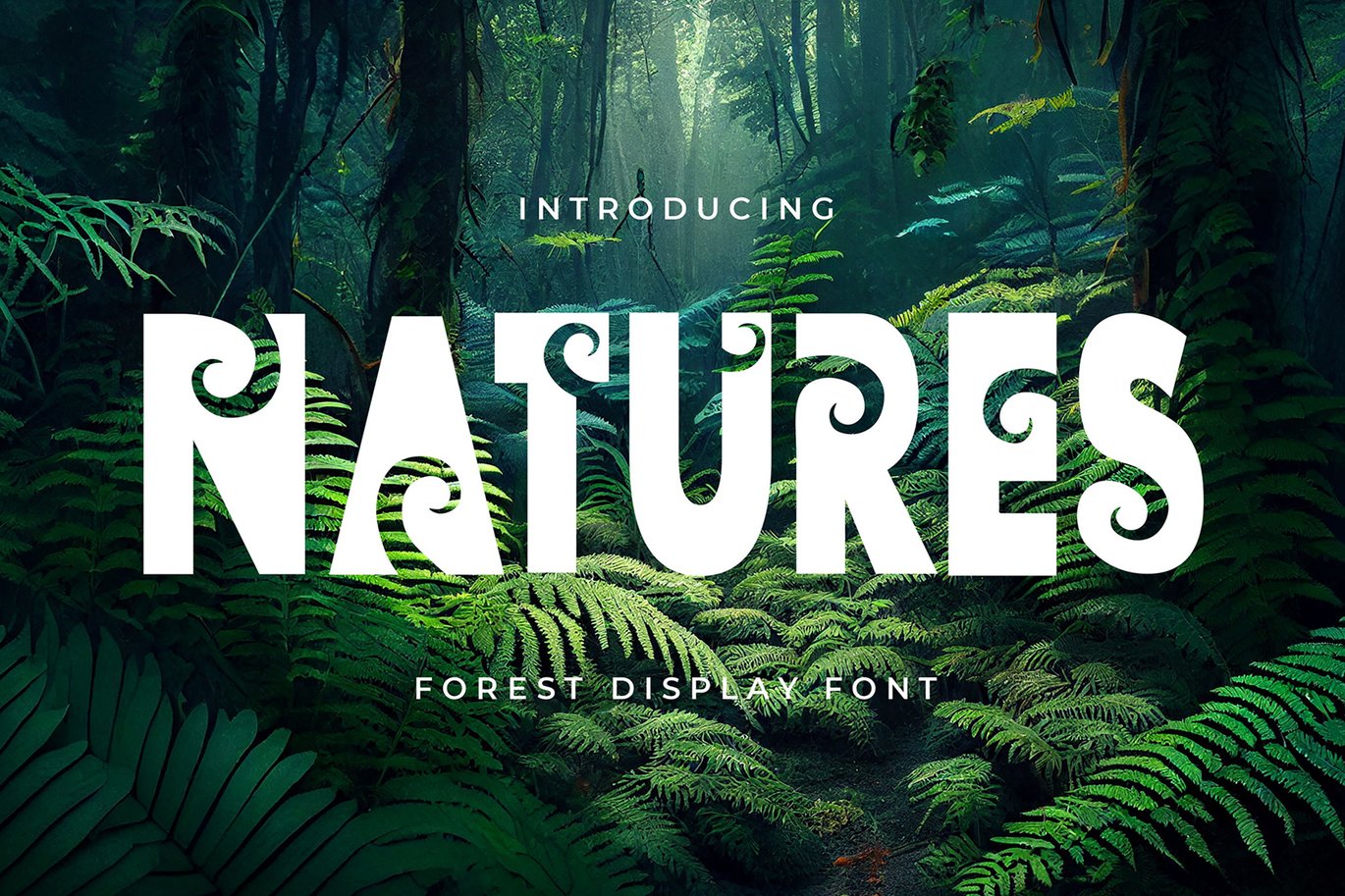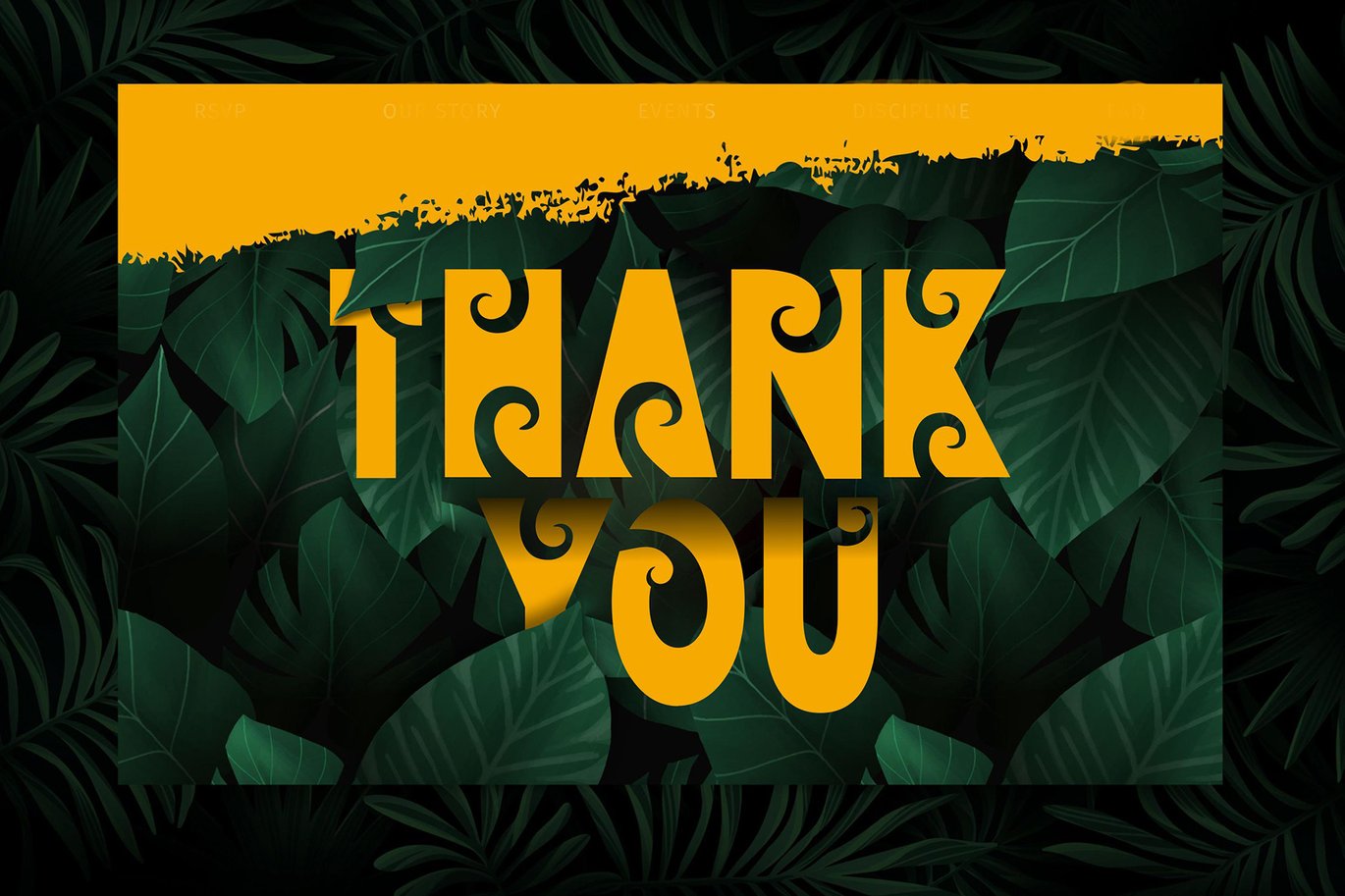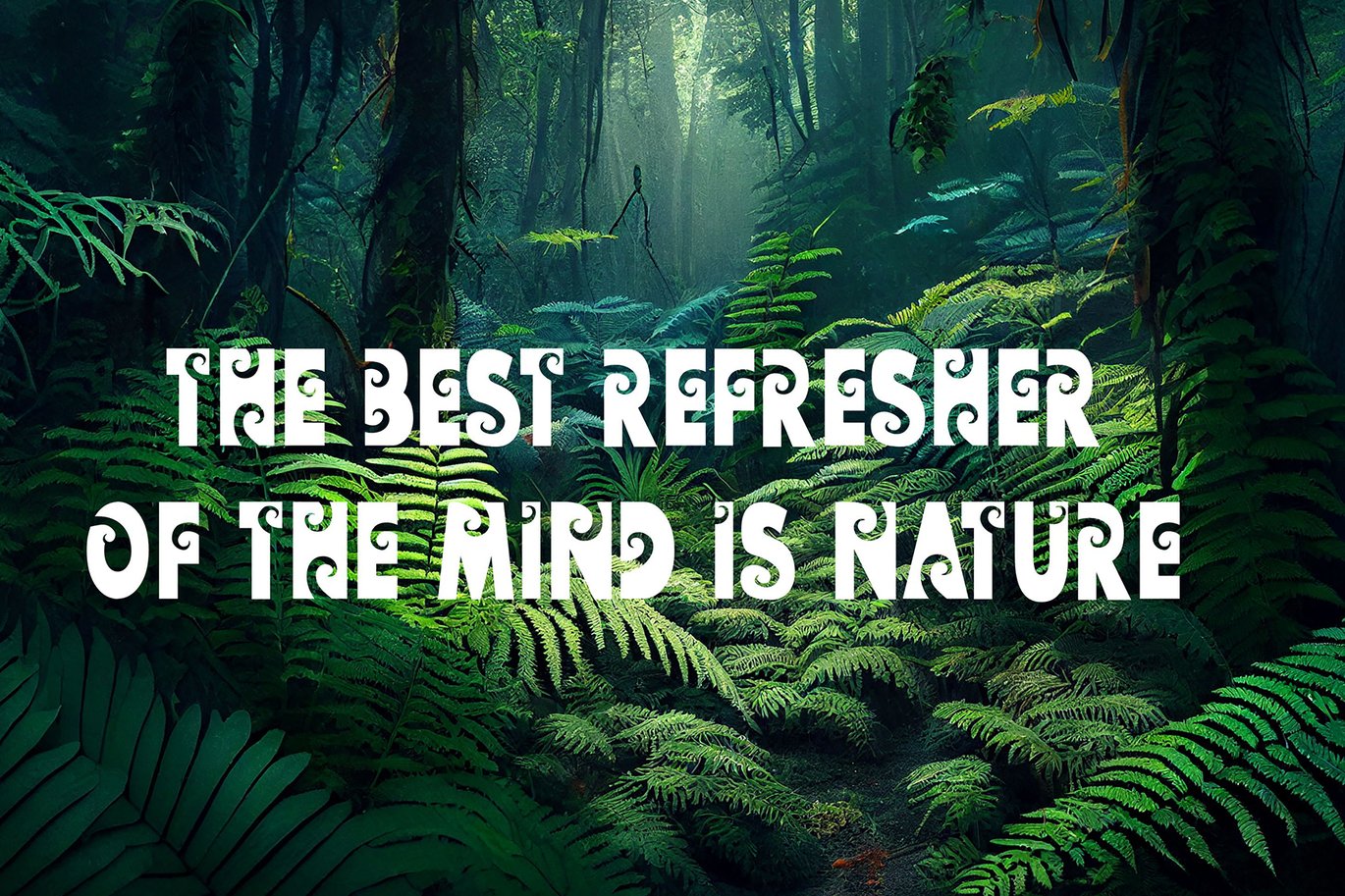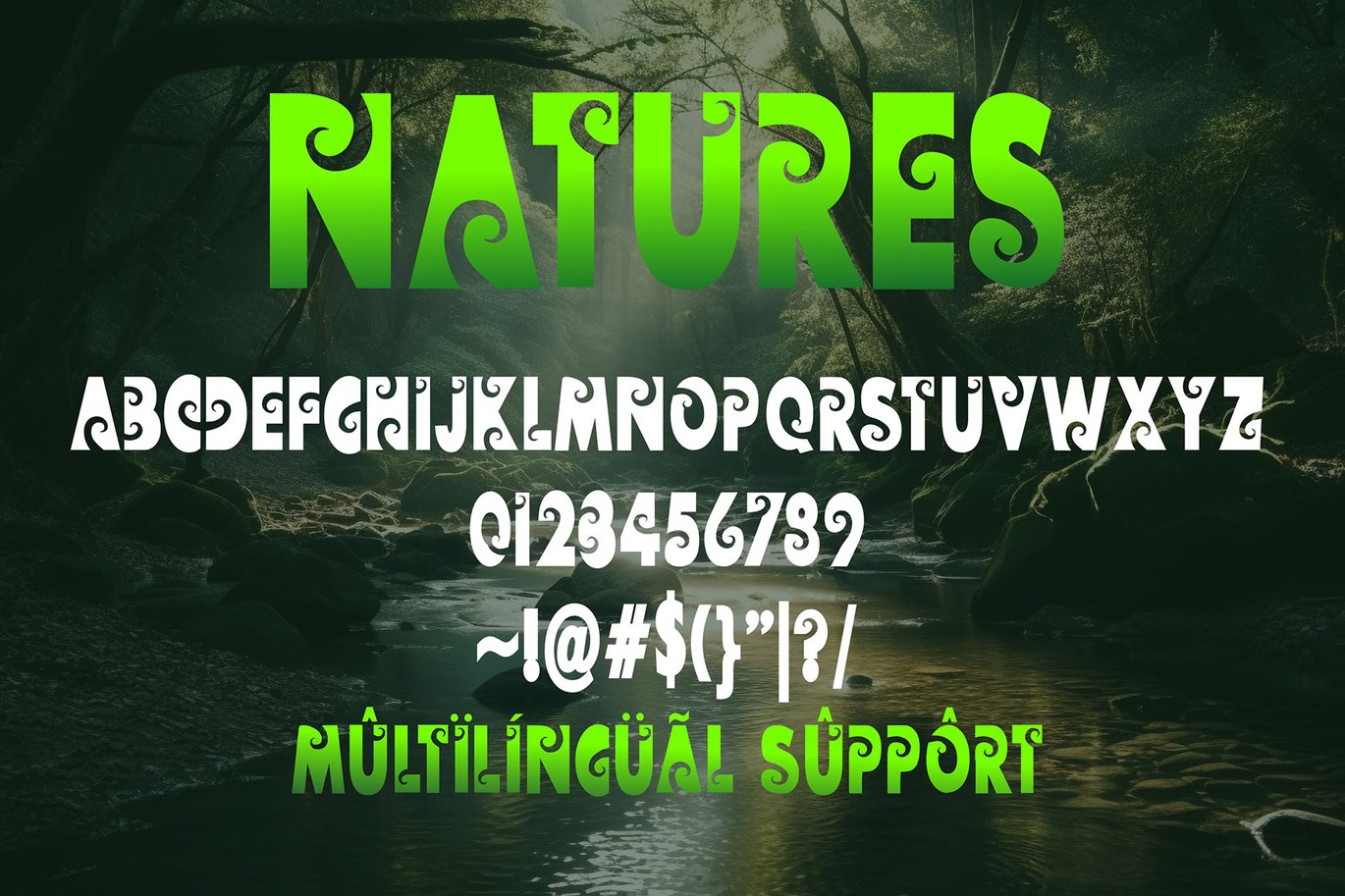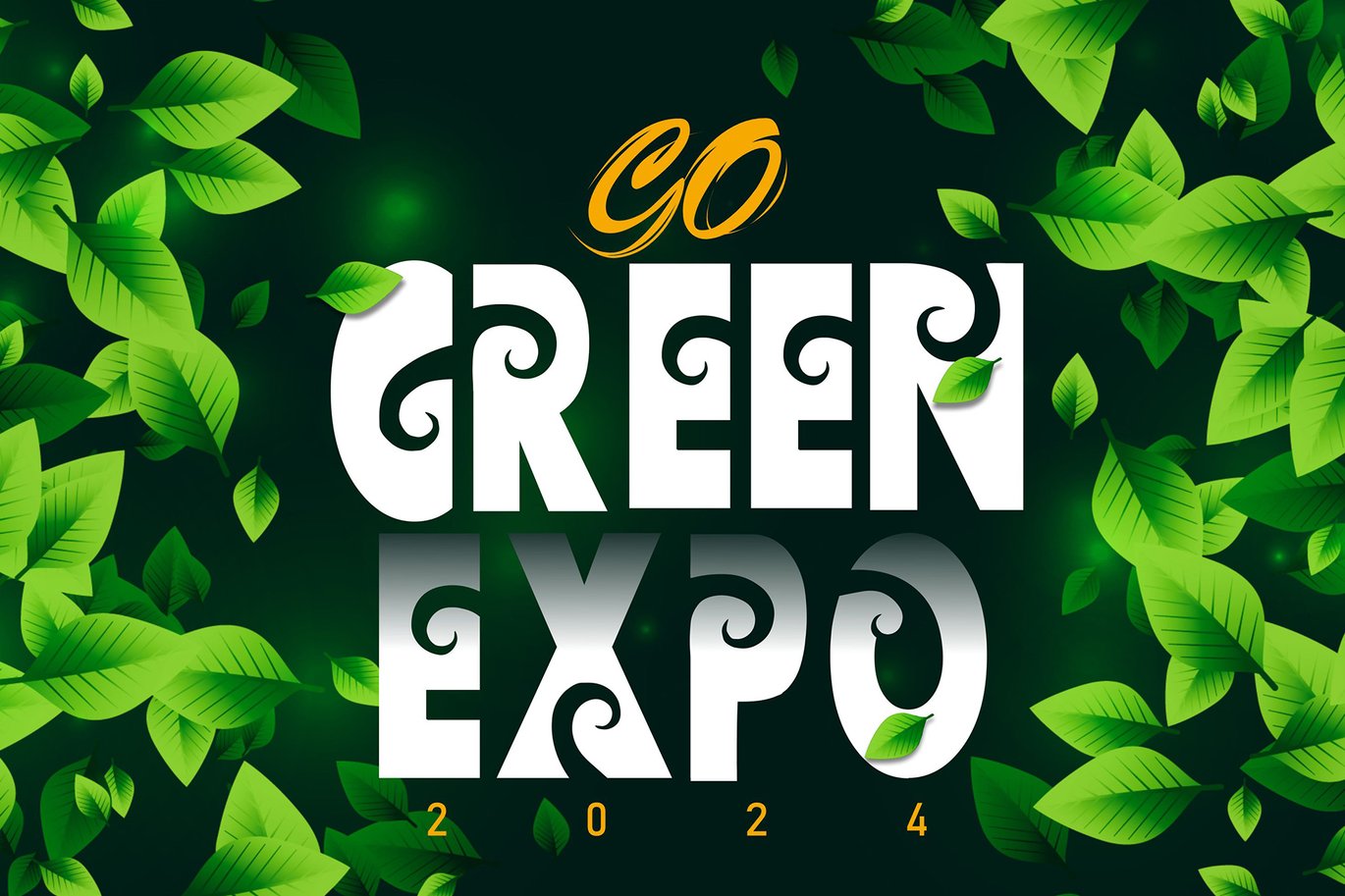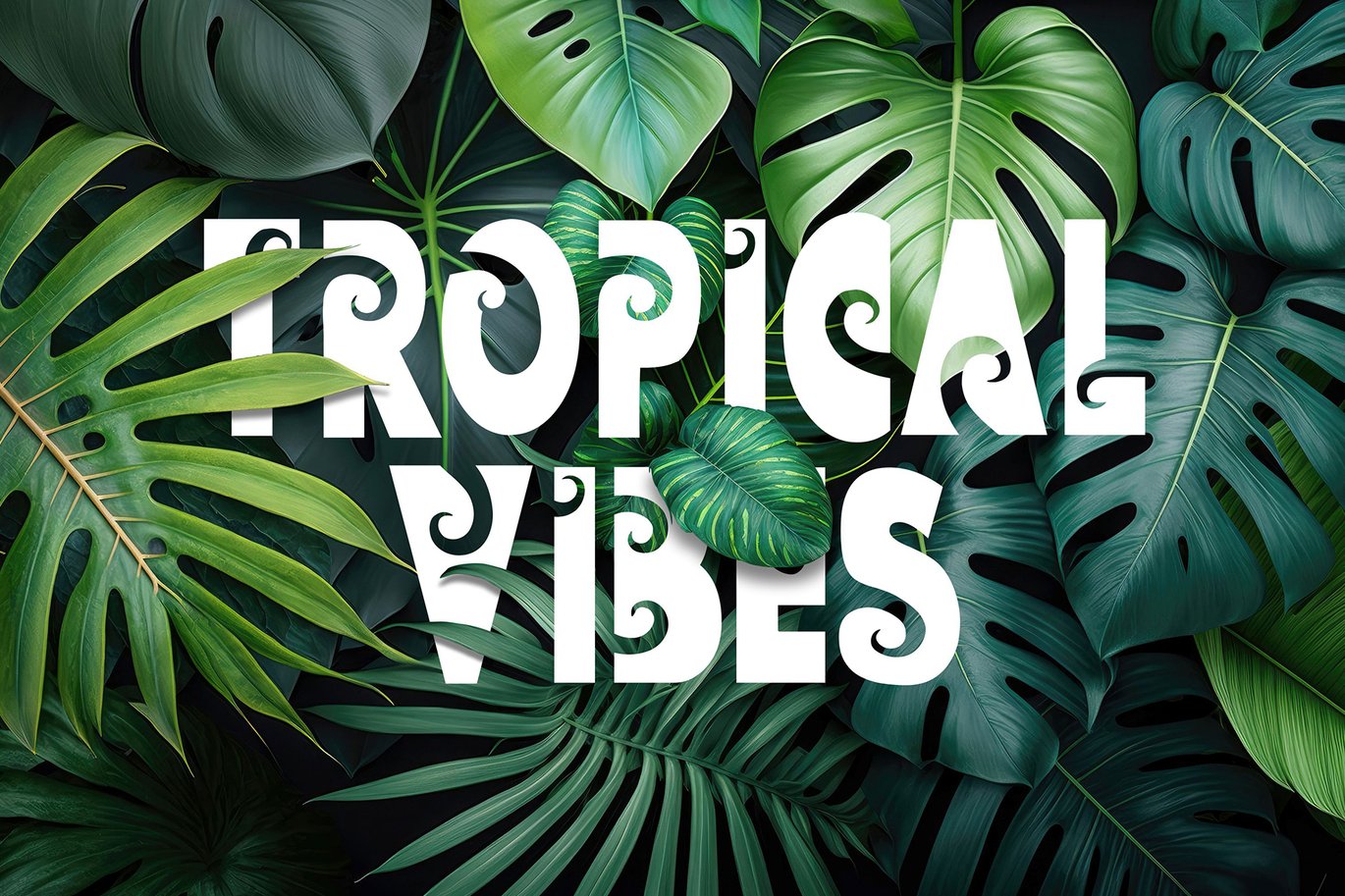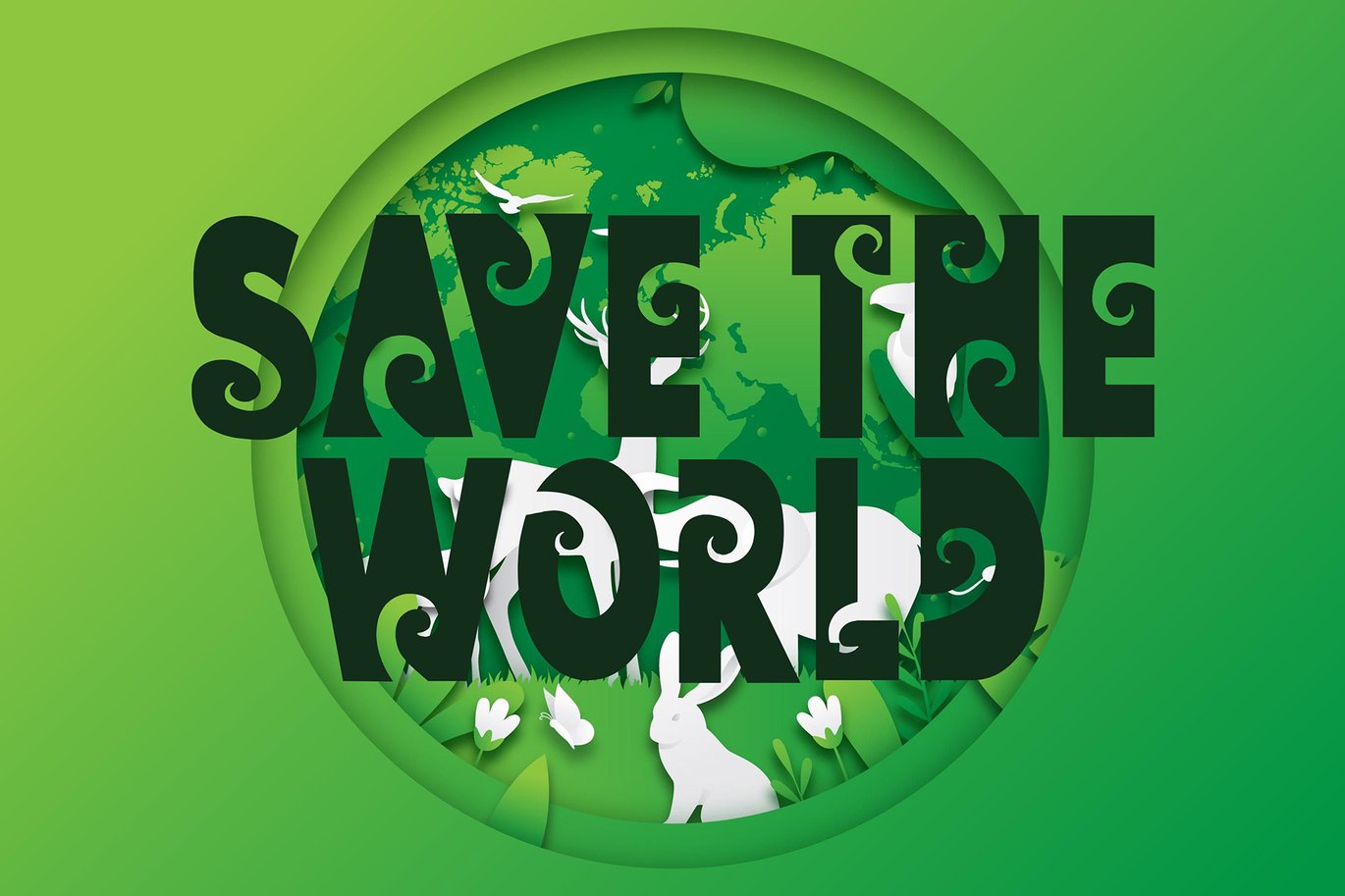
Natures – Decorative Display Font
Natures is a display font with decorative floral motifs encircling the ends of each character. This font brings a touch of nature and natural beauty into your typography. The letterforms adorned with circular flowers provide an artistic and organic appearance, making it suitable for designs that aim to express the beauty of nature or natural elements.
The Natures font can be used in various design projects, such as nature-themed posters, wedding invitations with a natural theme, products focusing on environmental conservation, and more. With floral decorations surrounding its characters, this font can add a special touch to your designs.